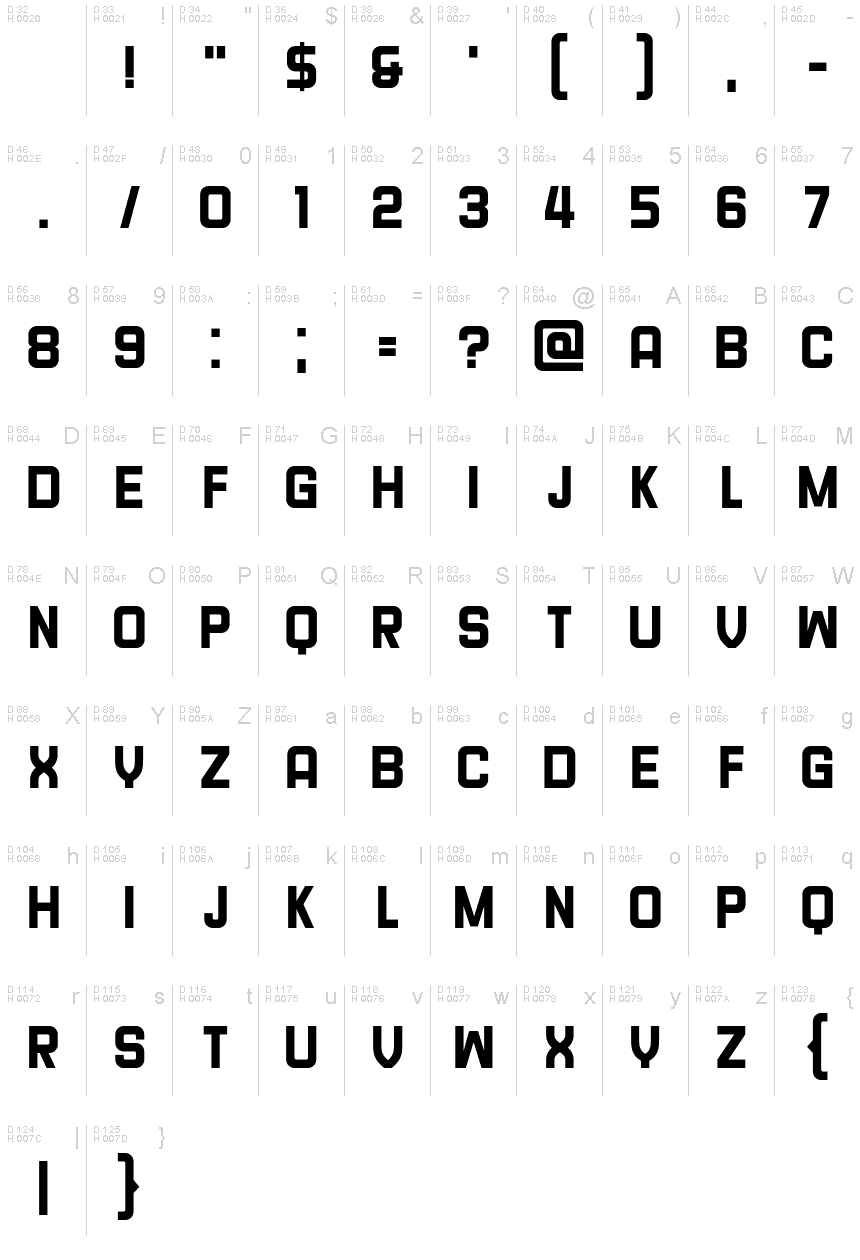
Navigator Regular
Navigator семейство состоит из 4 шрифты
Navigator font is a sans serif typeface designed by Vladimir Nikolic.
It comes in Regular, Extended, Italic, and Extended Italic variant.